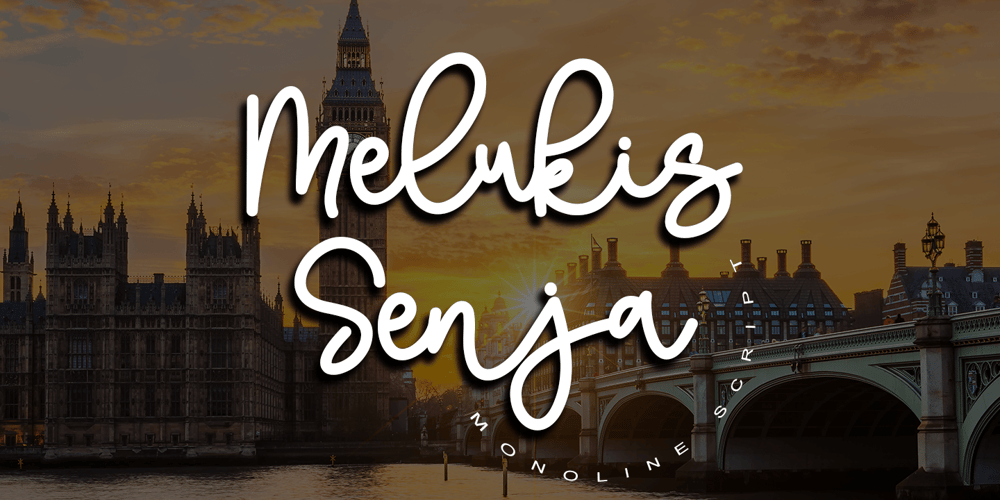
Melukis Senja
Melukis Senja font
Melukis Senja Font Family was designed by Stefani Tri Rosa Setiati Christiana and published by Stefani Letter. Melukis Senja contains 2 styles and family package options. Melukis Senja is a monoline script font which a natural movement. Melukis Senja is perfect for branding projects, logos, wedding designs, social media posts, advertisements, product packaging, product designs, photography, watermark, invitations, stationery, and any projects that need handwriting style. This font is PUA encoded which means you can access all of the amazing glyphs and swashes with ease!